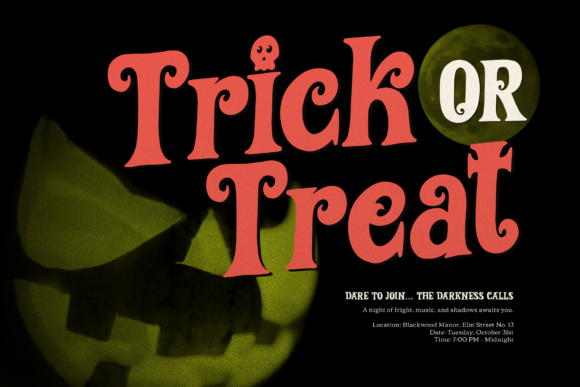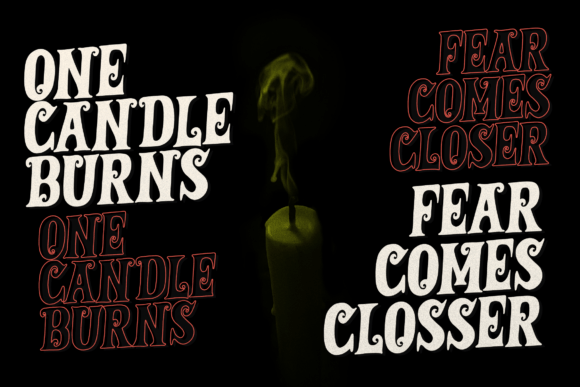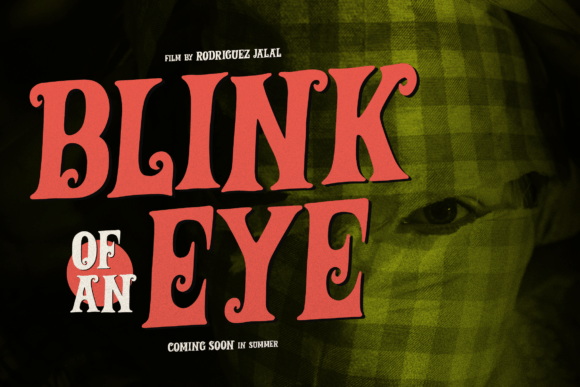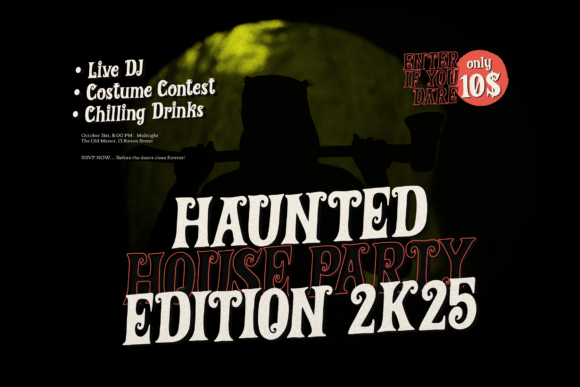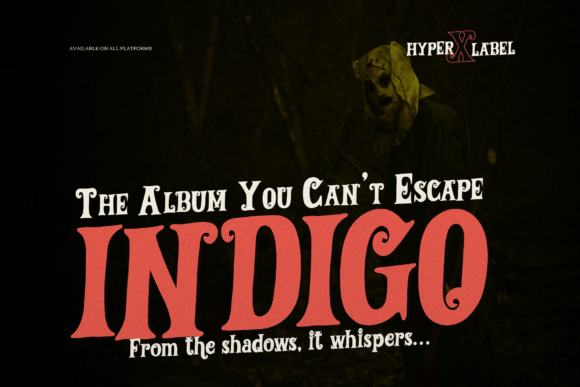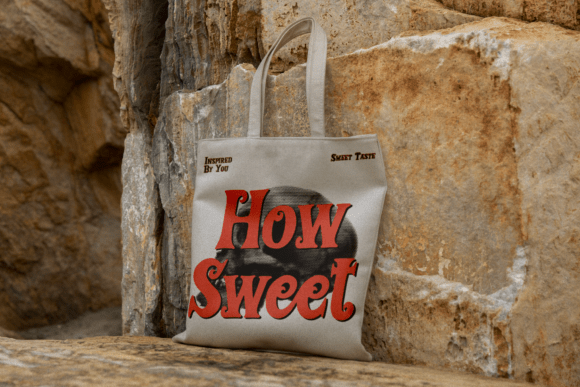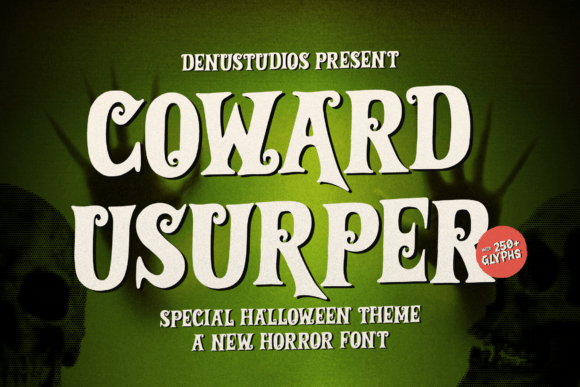
Coward Usurper Font: The Ultimate Typeface for Spine-Chilling Designs
Are you looking for a font that can add a touch of horror and vintage flair to your designs? Look no further than the Coward Usurper Font. This spine-chilling display font is inspired by classic horror film posters and pulp fiction book covers, making it perfect for designers and crafters who want to create eerie and captivating designs.
A Font that Commands Attention
Coward Usurper Font features dramatic curves, eerie serifs, and a bold presence that commands attention. Its unique design makes it stand out from other fonts, and its versatility allows it to be used in a variety of projects, from Halloween-themed designs to thriller book covers and eerie movie titles.
Inspired by Classic Horror
The Coward Usurper Font is inspired by the classic horror film posters and pulp fiction book covers of the past. Its design pays homage to the nostalgic feel of these iconic designs, while also adding a modern twist. The font’s vintage flair and sinister twist make it perfect for designers who want to create designs that are both haunting and stylish.
Multilingual Support and Stylistic Alternates
One of the standout features of the Coward Usurper Font is its multilingual support. With over 250 glyphs, this font offers a wide range of characters and symbols that can be used to create designs in multiple languages. Additionally, the font features stylistic alternates, which allow designers to add even more variation and creativity to their designs.
The Coward Usurper Font is perfect for a variety of projects, including:
- Halloween projects: Create spooky and captivating designs for Halloween-themed parties, decorations, and marketing materials.
- Thriller book covers: Add a touch of horror and suspense to your book covers with this font.
- Eerie movie titles: Create eye-catching and haunting movie titles with this font.
- Vintage horror branding: Use this font to create branding materials that pay homage to the classic horror films and pulp fiction of the past.
- Party invites: Create spooky and stylish invitations for Halloween parties and other events.
- Spooky merch: Use this font to create eye-catching and haunting merchandise, such as t-shirts, posters, and stickers.
Blending Fear and Nostalgia
The Coward Usurper Font blends fear and nostalgia in a way that creeps off the page. Its unique design and vintage flair make it perfect for designers who want to create designs that are both haunting and stylish. Whether you’re creating designs for Halloween or just want to add a touch of horror to your projects, this font is sure to deliver.
Tips for Using the Coward Usurper Font
Here are a few tips for using the Coward Usurper Font:
- Use it sparingly: This font is bold and attention-grabbing, so use it sparingly to avoid overwhelming your designs.
- Experiment with different colors: The Coward Usurper Font looks great in a variety of colors, from bold and bright to muted and eerie.
- Pair it with other fonts: This font pairs well with other fonts that have a similar vintage or horror theme.